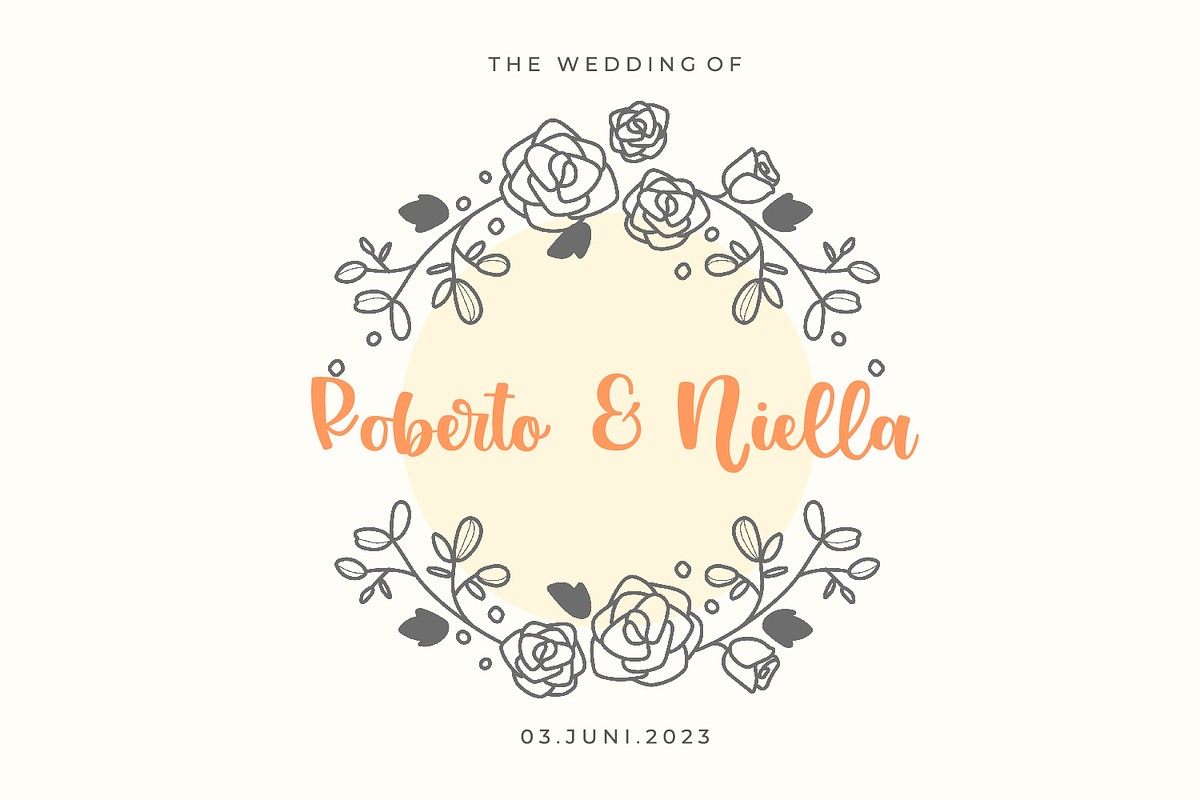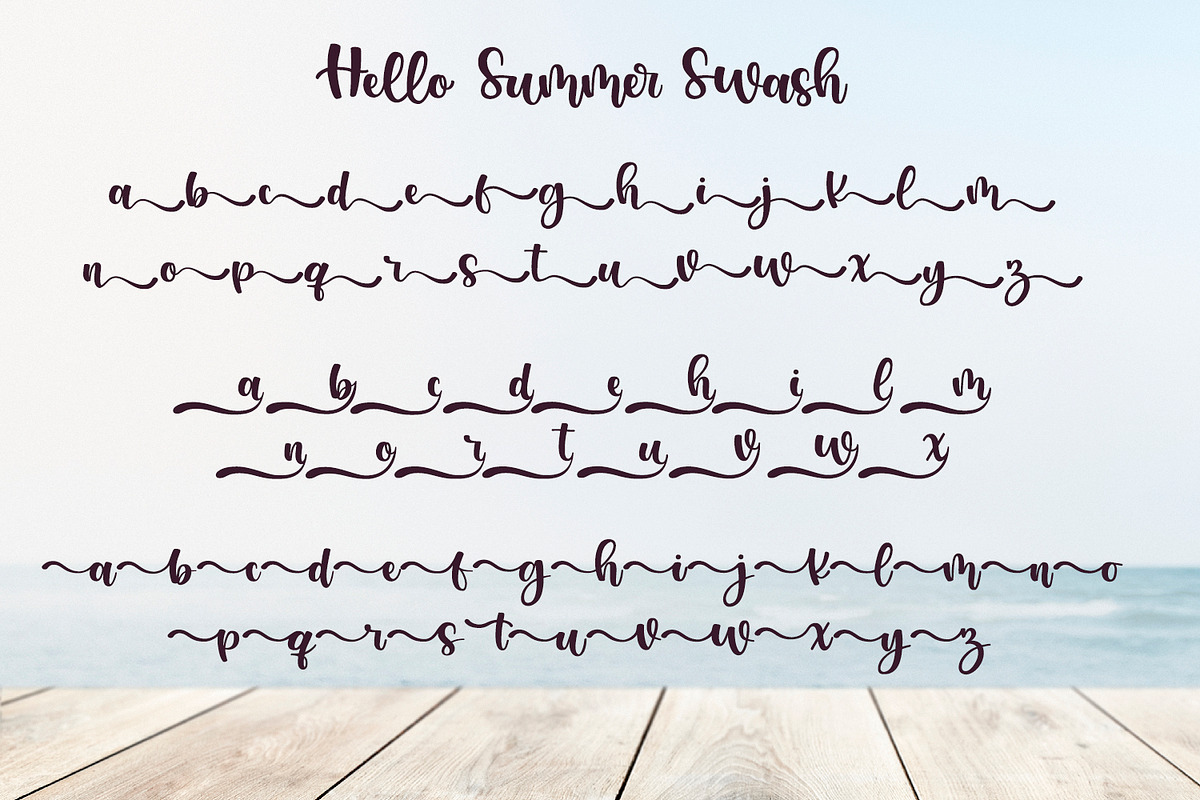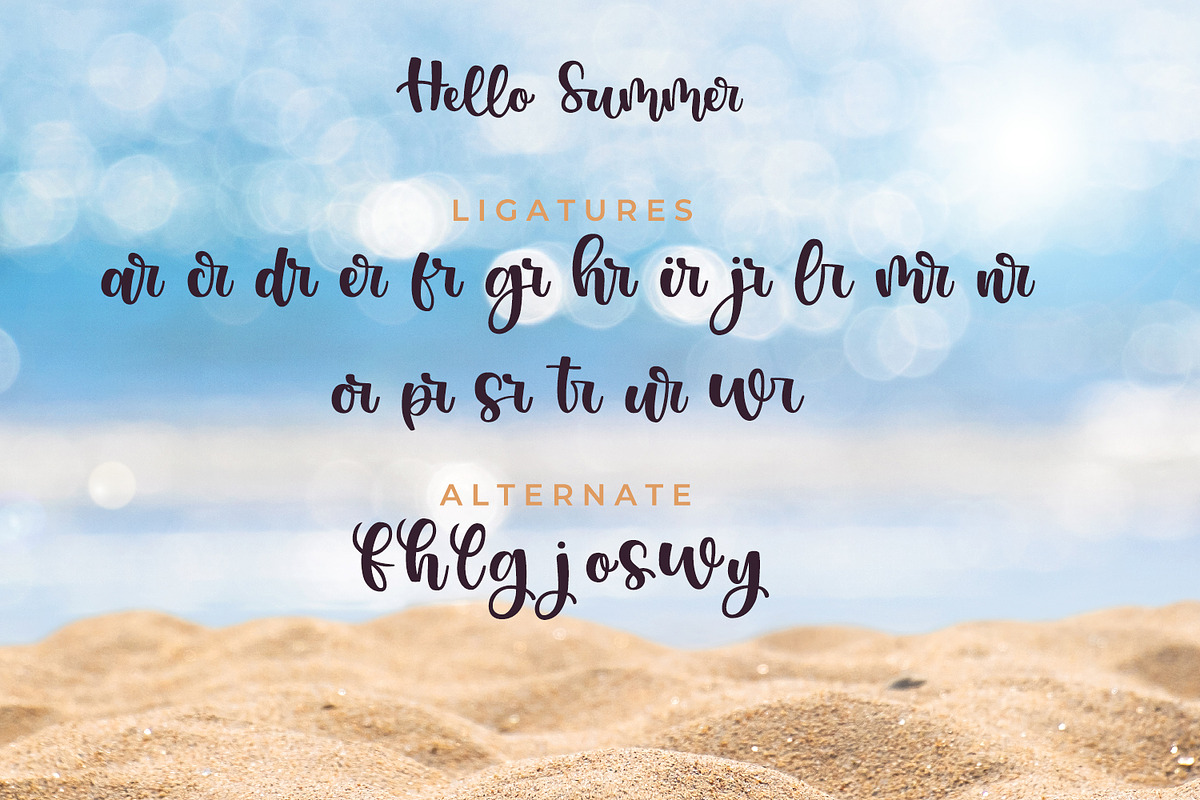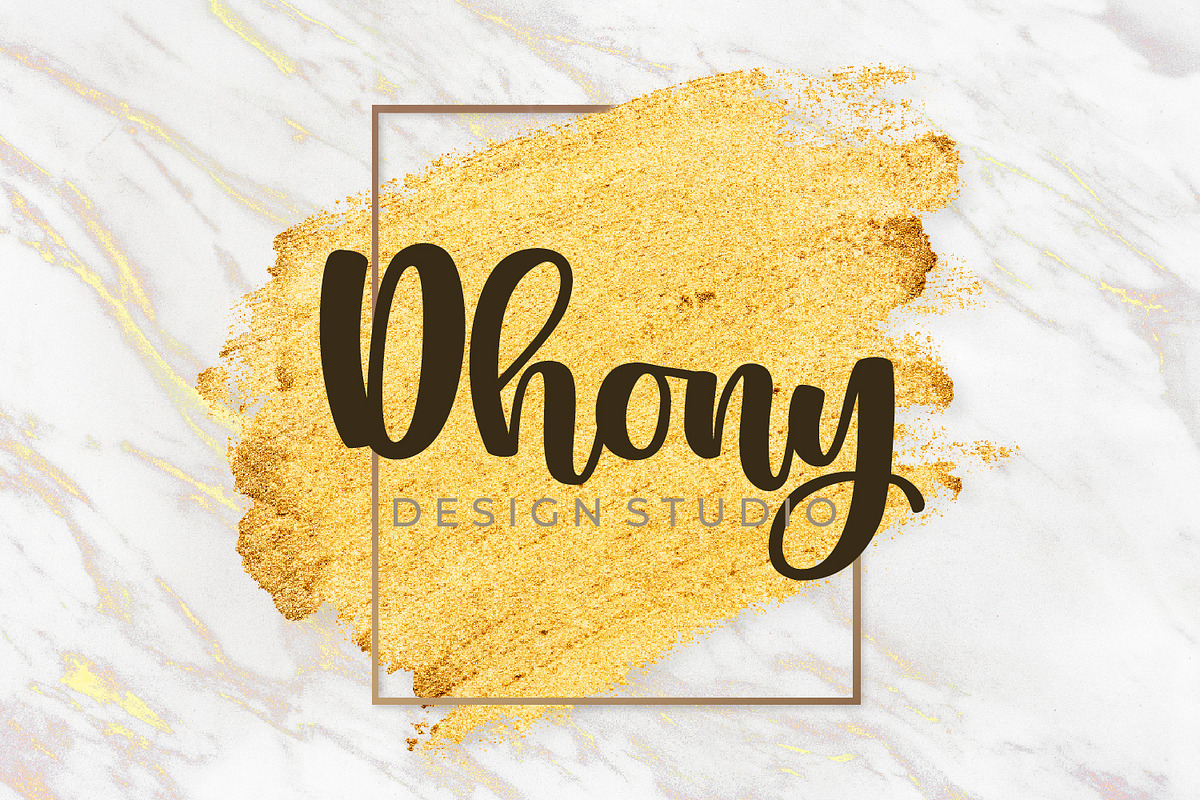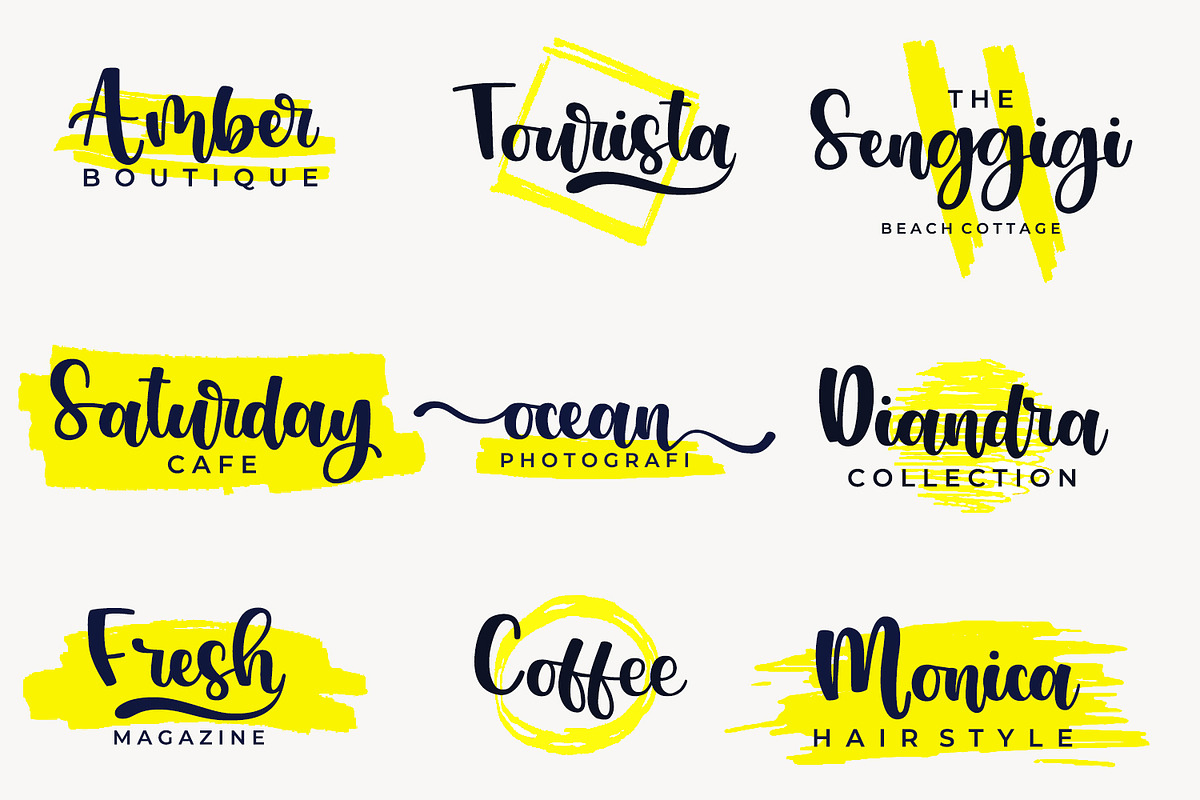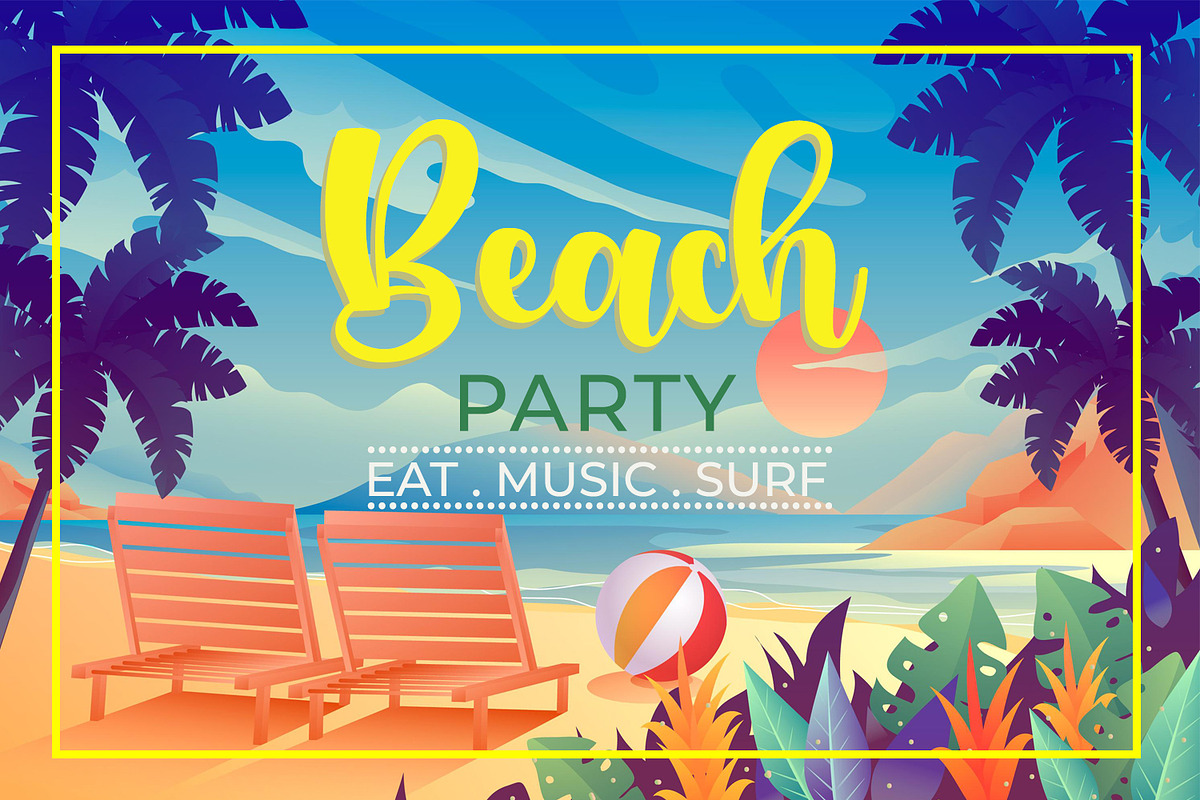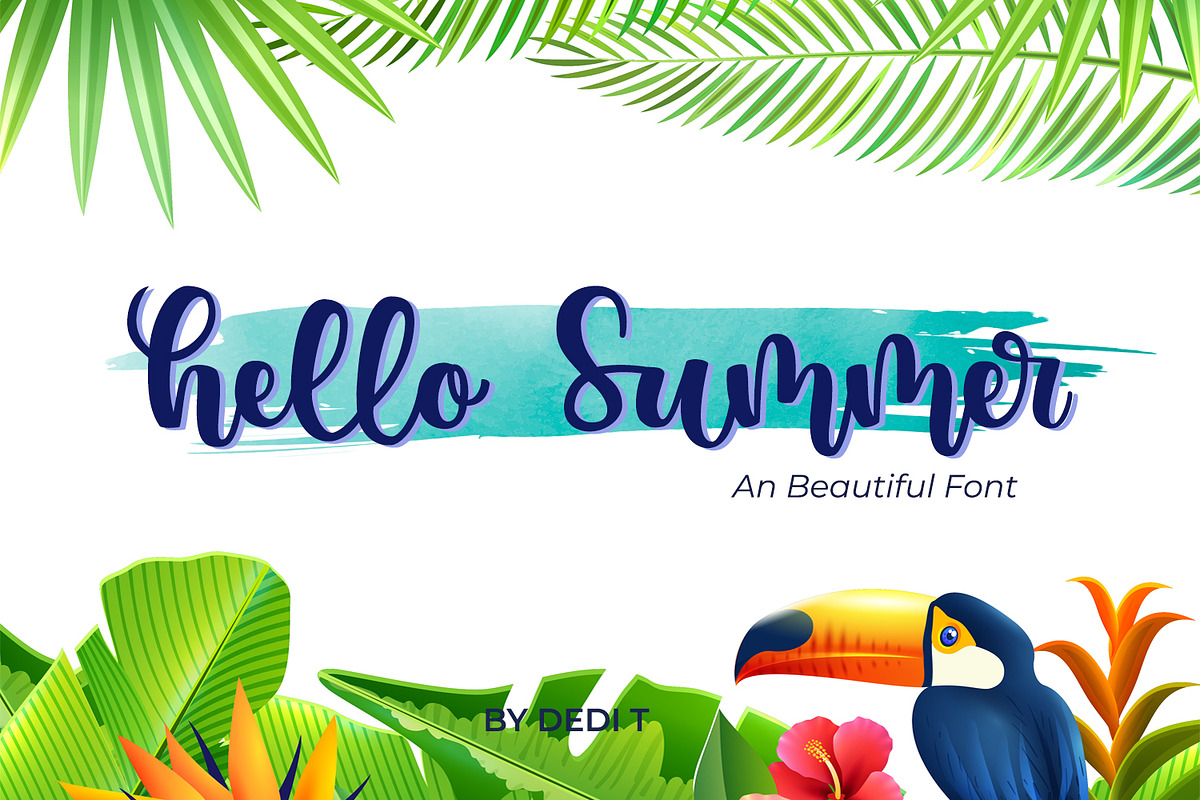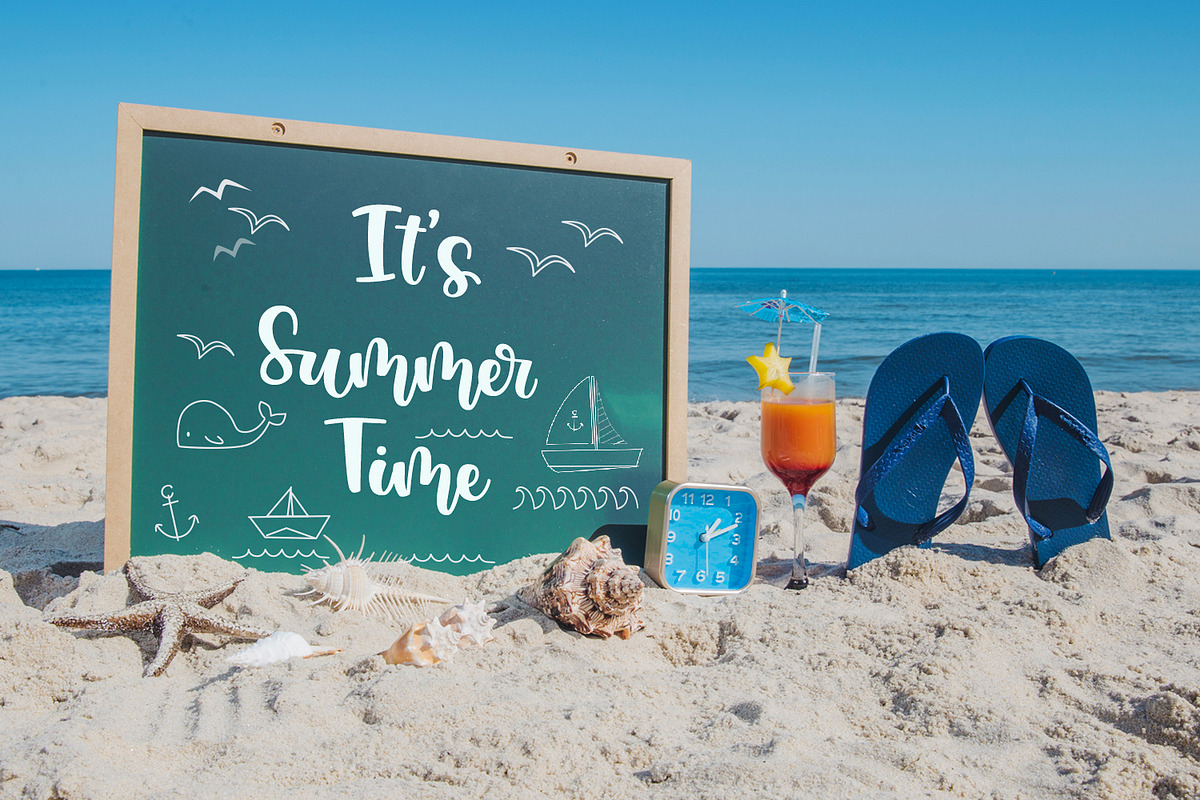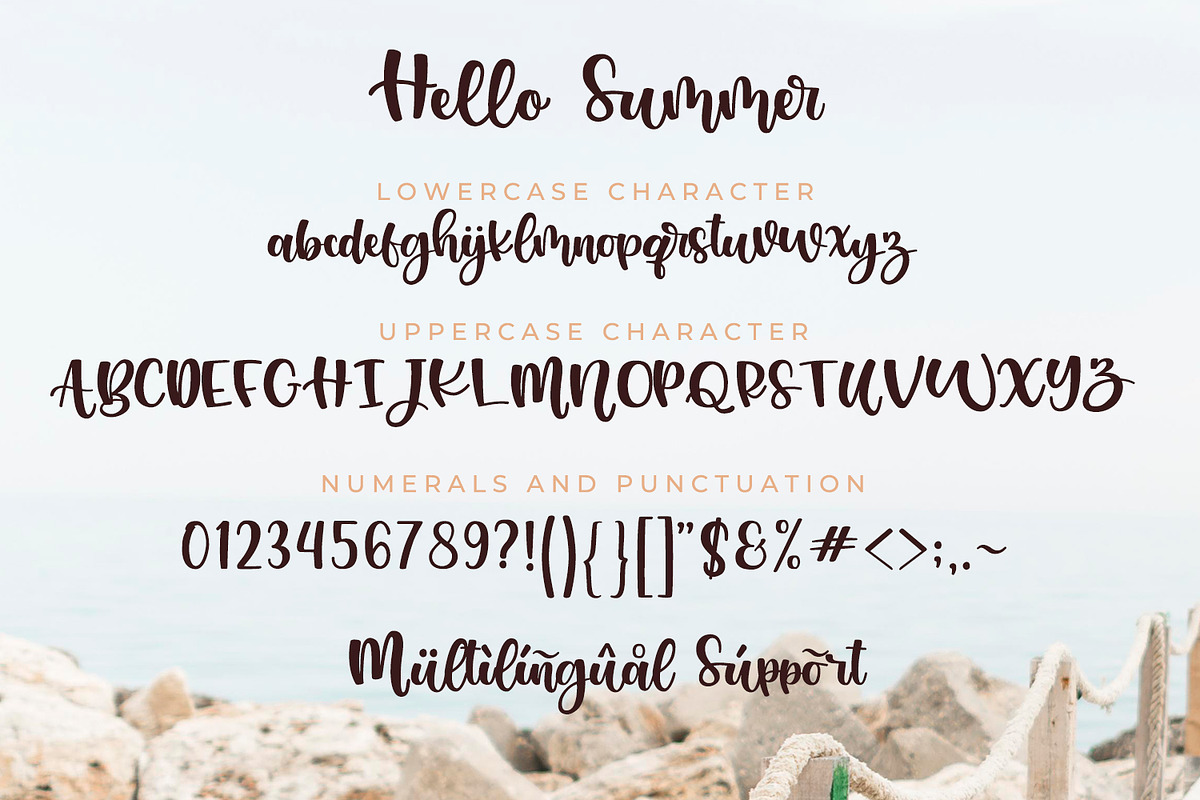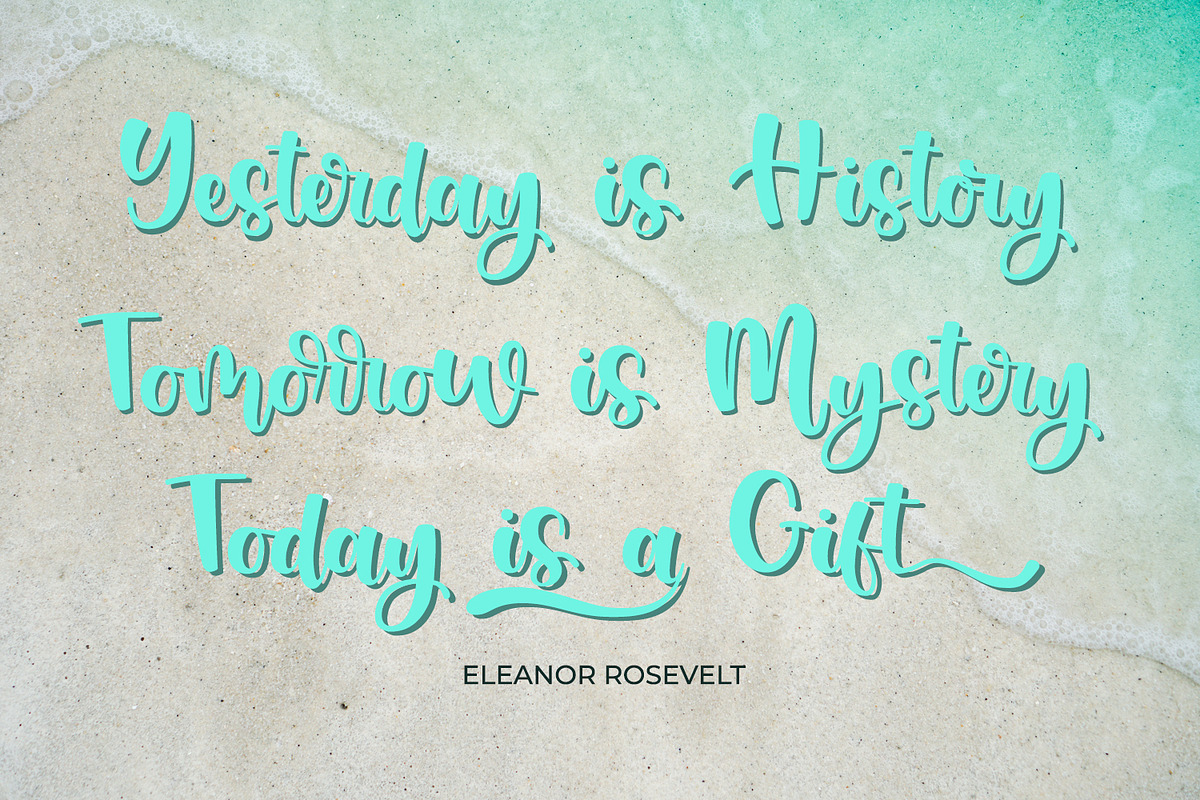
Hello Summer
Introducing Hello Summer. Hello Summer font is a simple and classy font, comes with opentype features such as stylistic alternates,swash and ligatures. We make this font looks classy, readable, stylish, catchy and easy to use.
Hello Summer is the great choice for photography, signature or signature logo design, quotes, album cover, business card, and many other design project. From business cards to photo watermarks, Hello Summer is here to elevate your work to the highest level.
· Ligatures and Alternate